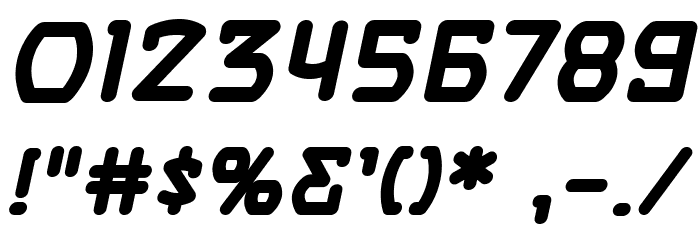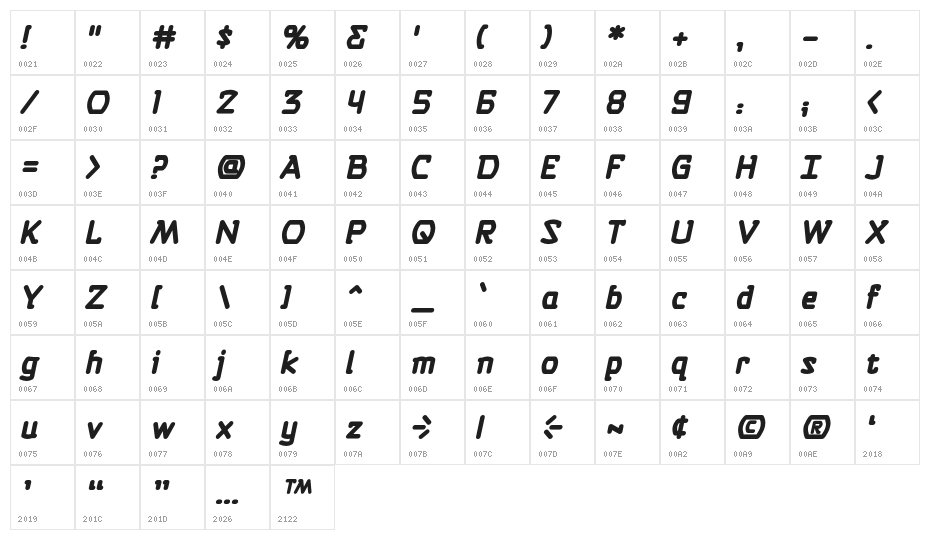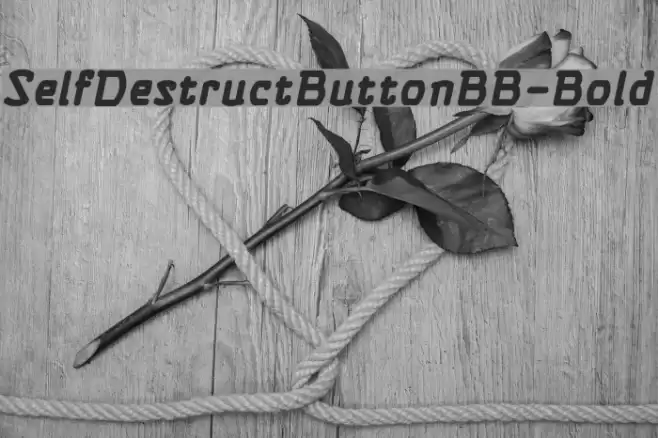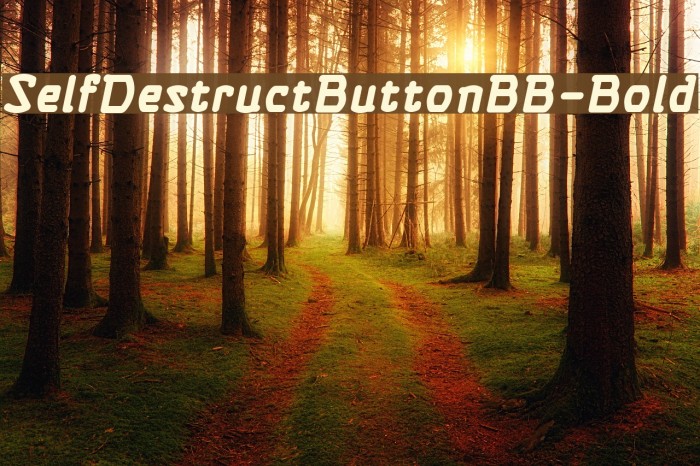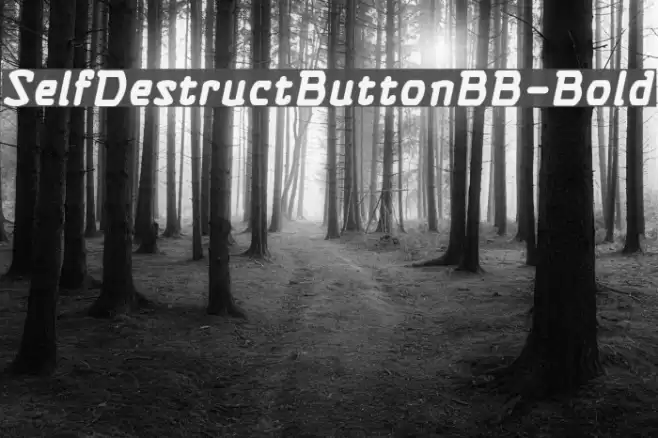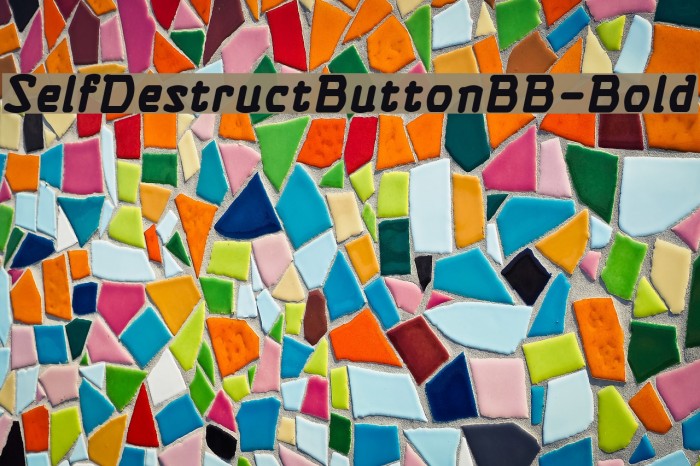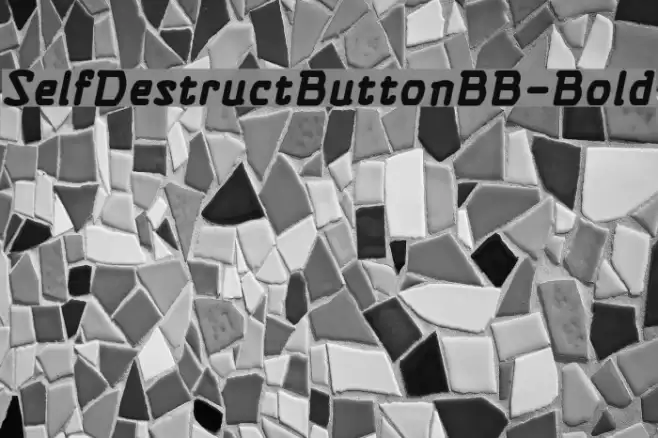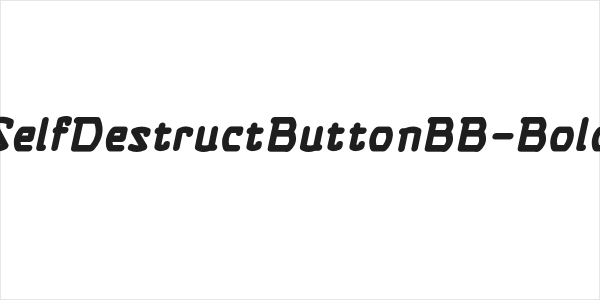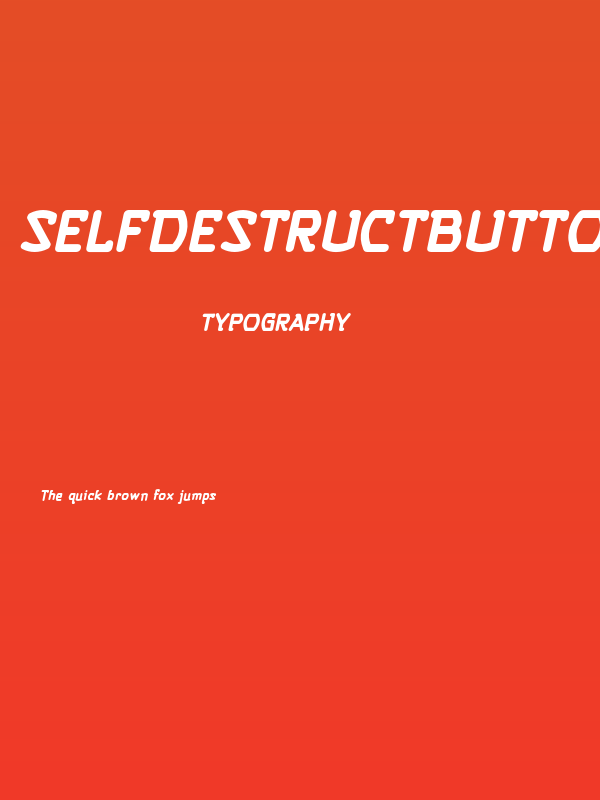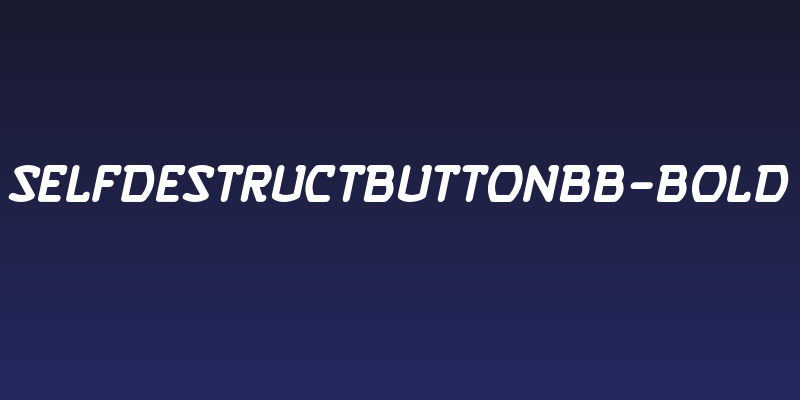
SelfDestructButtonBB-Bold Font
SelfDestructButtonBB-Bold Description
This font features a bold, rounded style with a slightly italicized slant, giving it a dynamic and energetic appearance. The characters are well-spaced, providing a clean and modern look. The uppercase and lowercase letters maintain a consistent style, with smooth curves and a uniform thickness that enhances readability. The numerals and special characters are designed to match the overall aesthetic, making them easily distinguishable. This font's boldness and slight slant make it suitable for attention-grabbing headlines and titles.
| Proposed Projects | Ideal for branding, advertising, posters, and any project requiring a bold, modern typeface. |